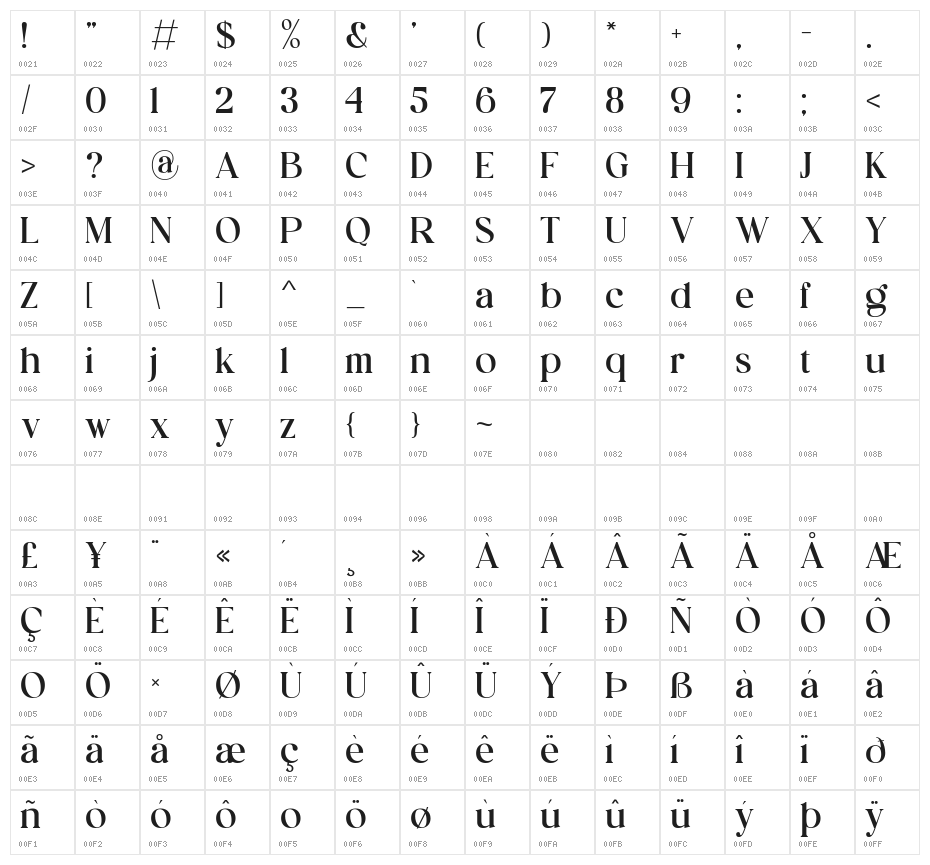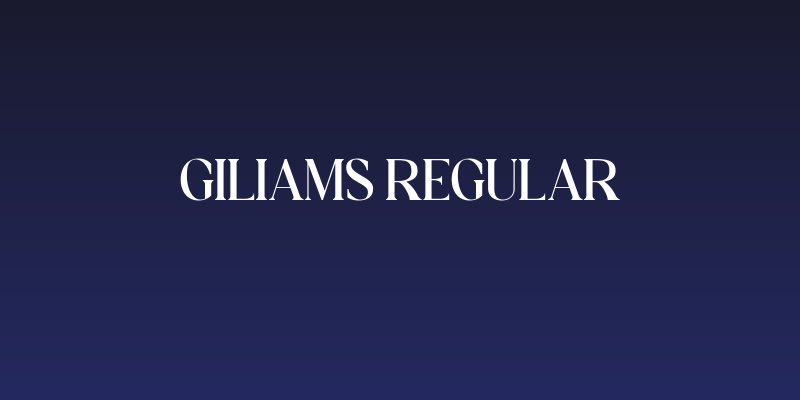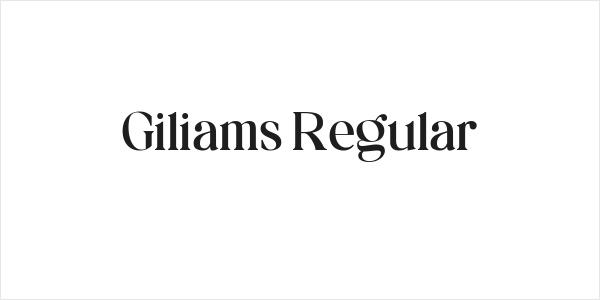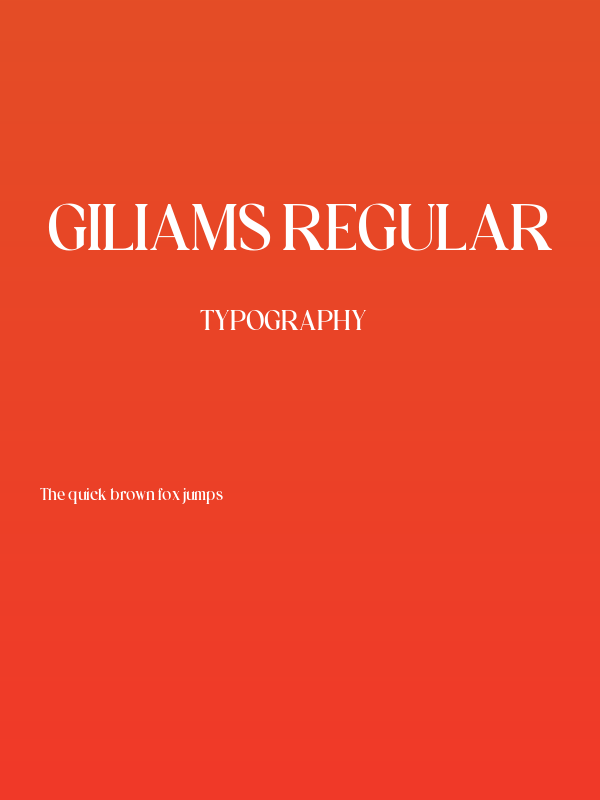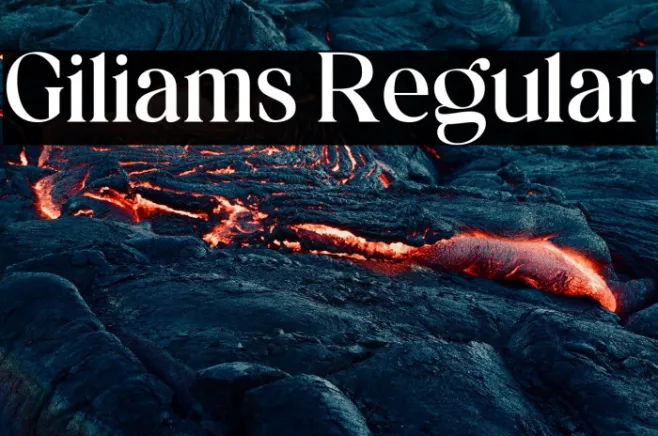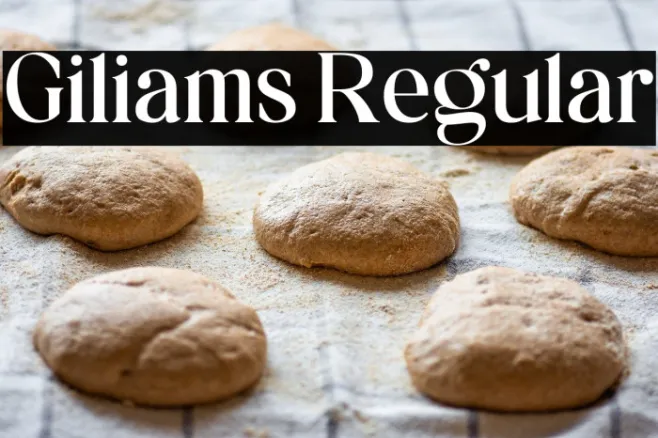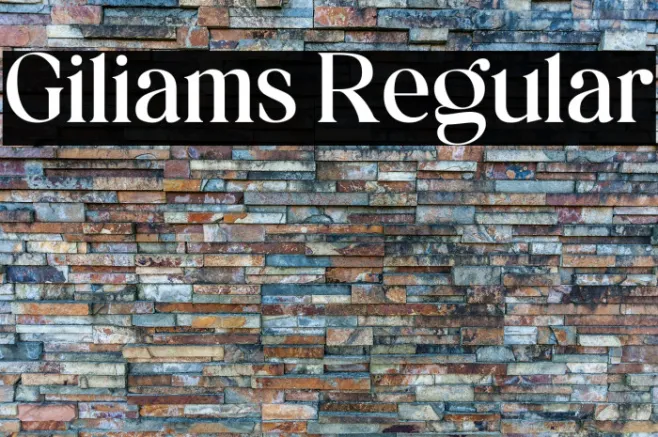
Giliams Regular Font
Giliams Regular Description
This font exhibits a classic serif style with a modern twist, characterized by its elegant and refined letterforms. The uppercase letters are tall and commanding, while the lowercase letters maintain a balanced and harmonious appearance. The numerals are bold and easily readable, making them suitable for a variety of applications. The special characters are distinct and well-crafted, adding to the font's versatility. The overall design is sophisticated, making it ideal for projects that require a touch of elegance and professionalism.
| Proposed Projects | Ideal for editorial design, book covers, branding, and high-end product packaging. |